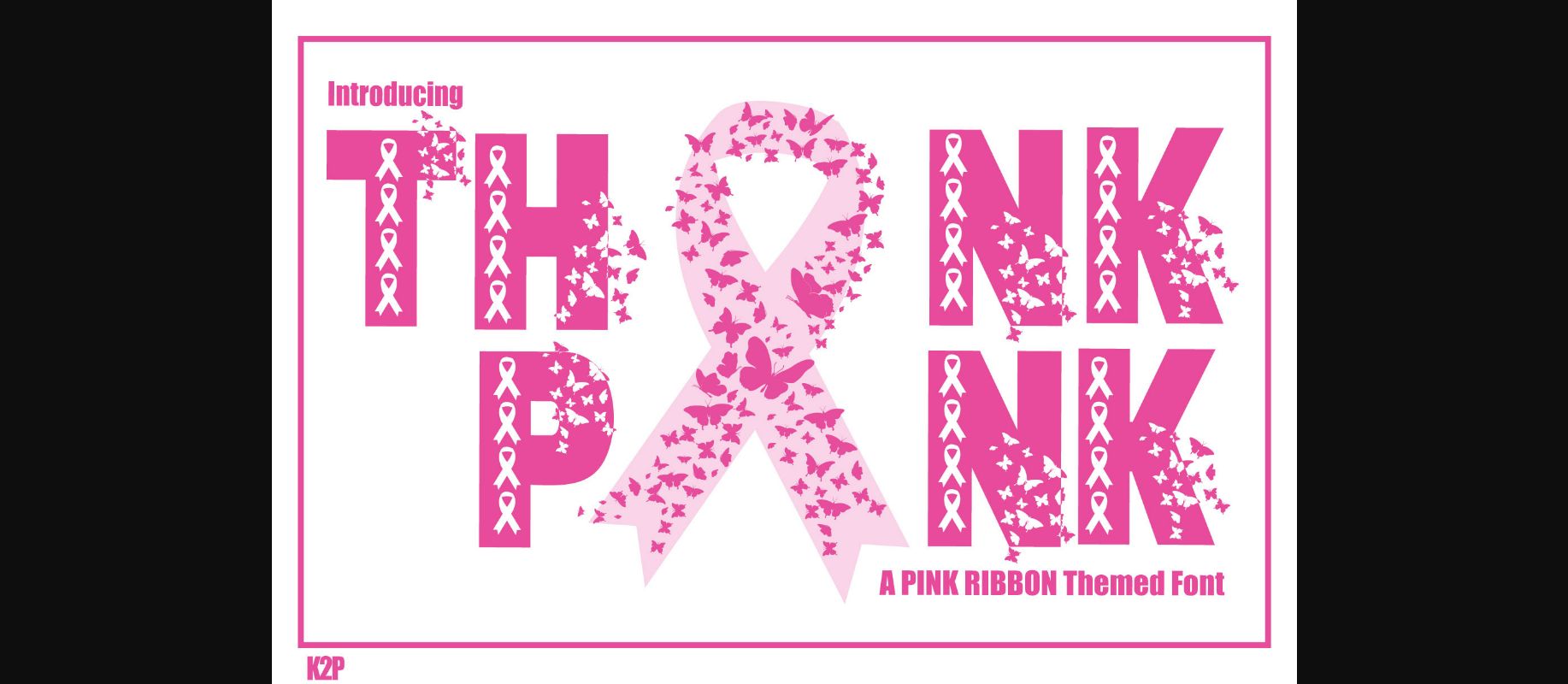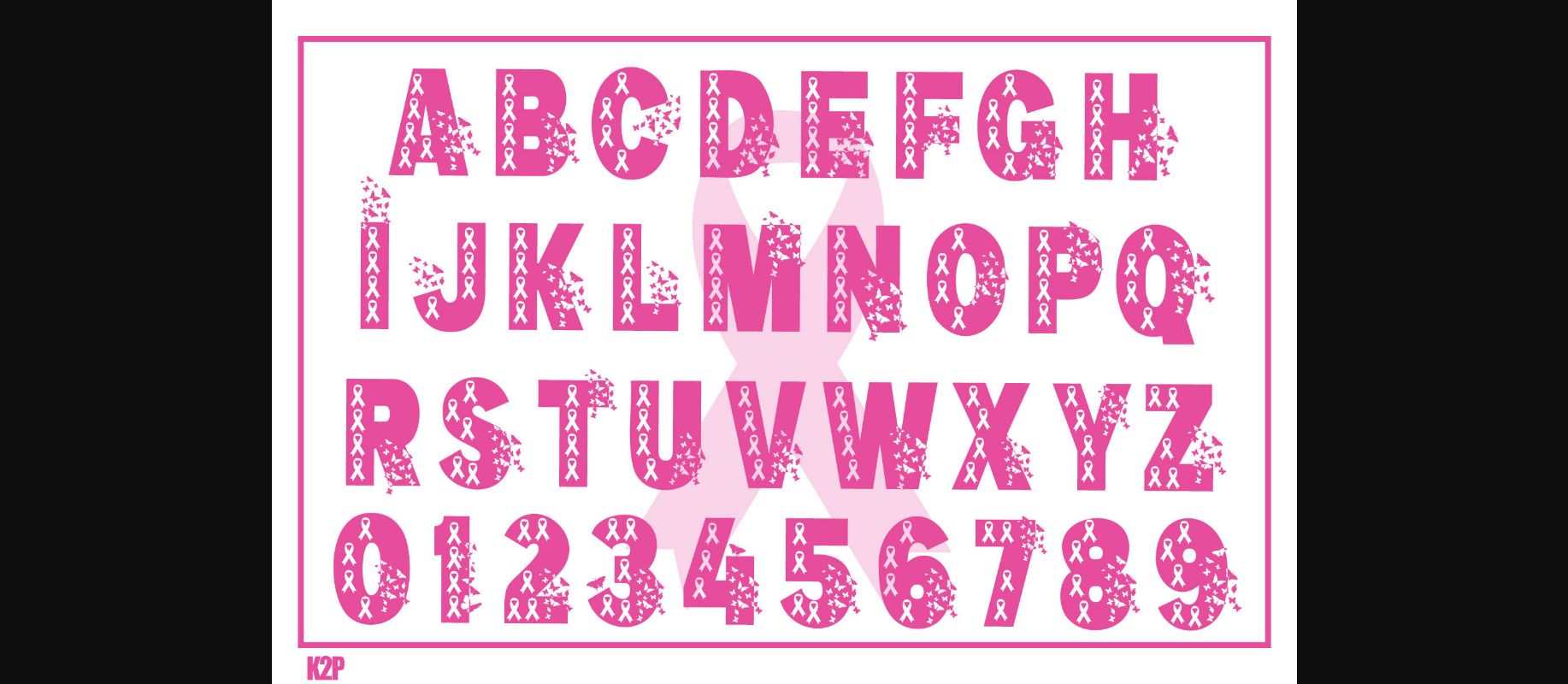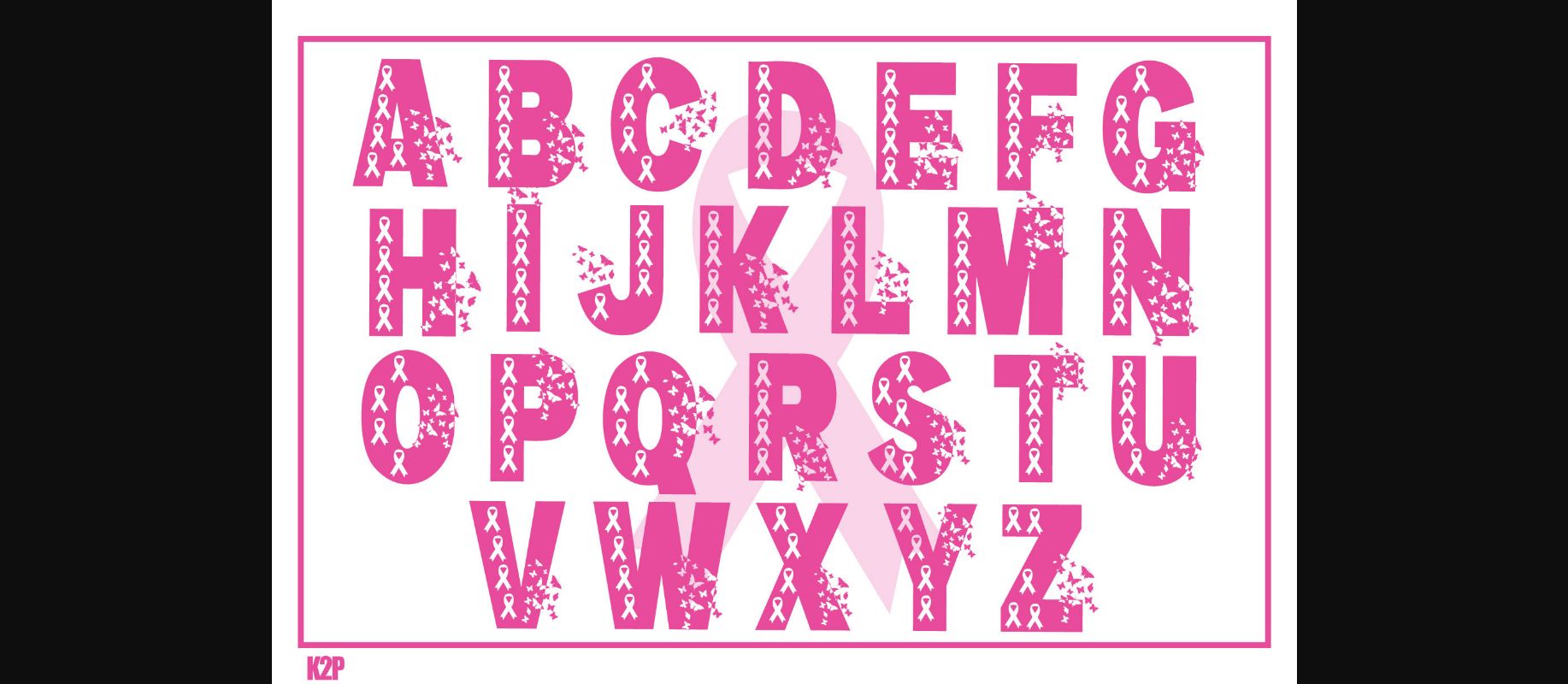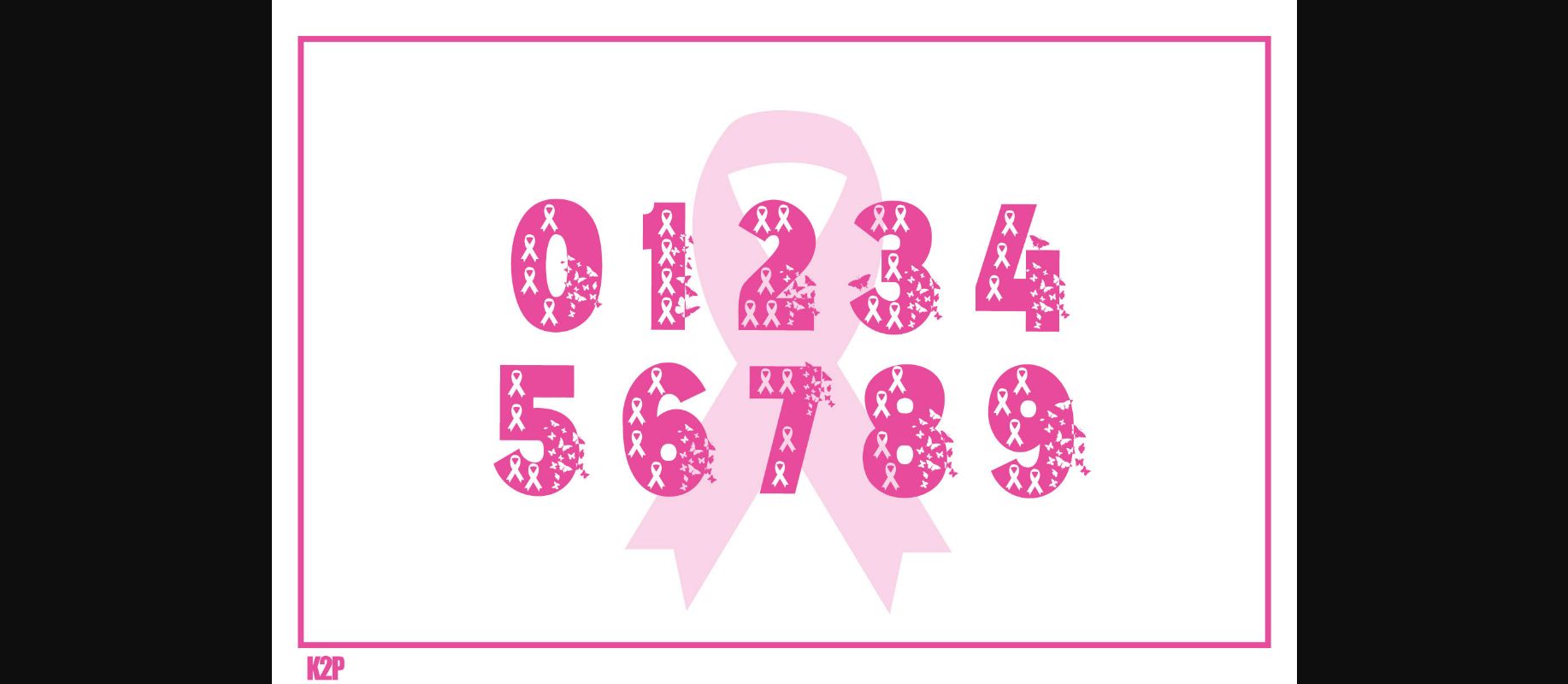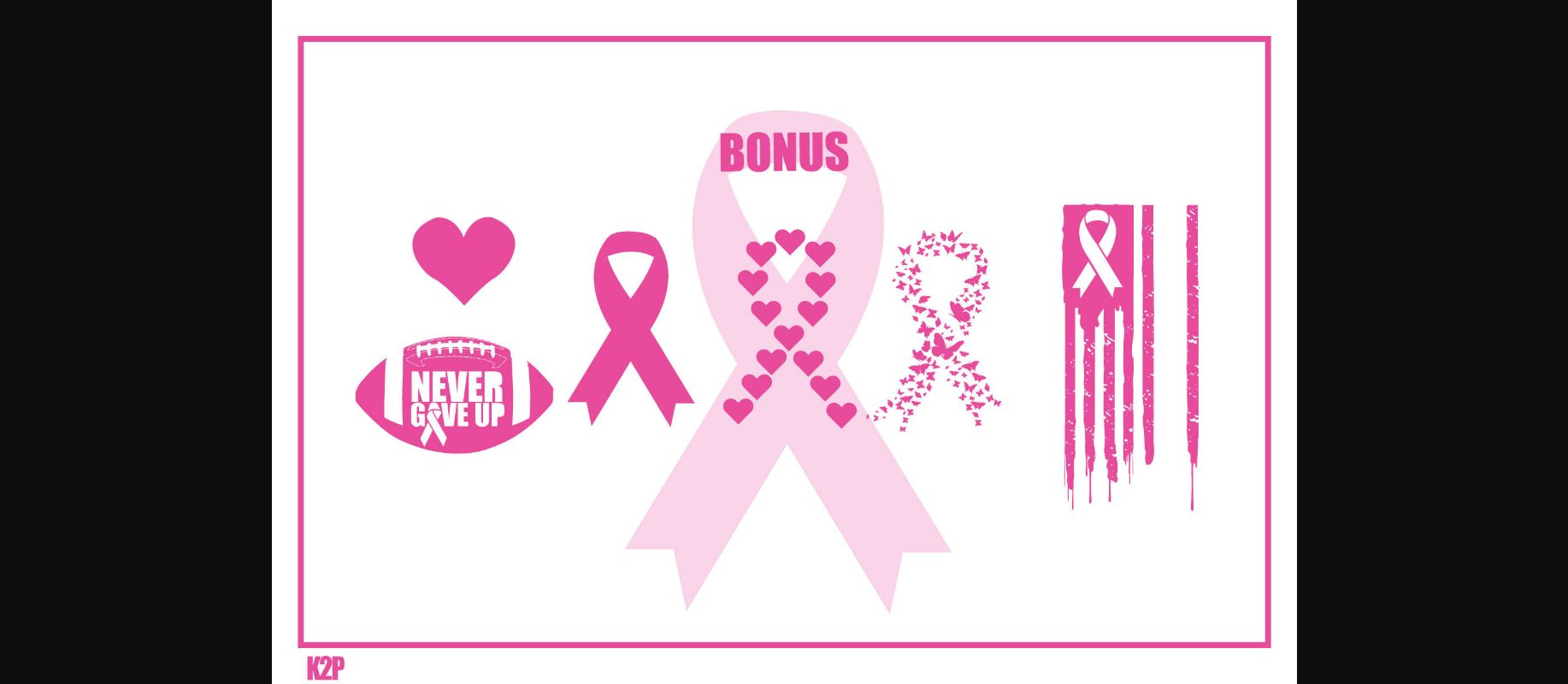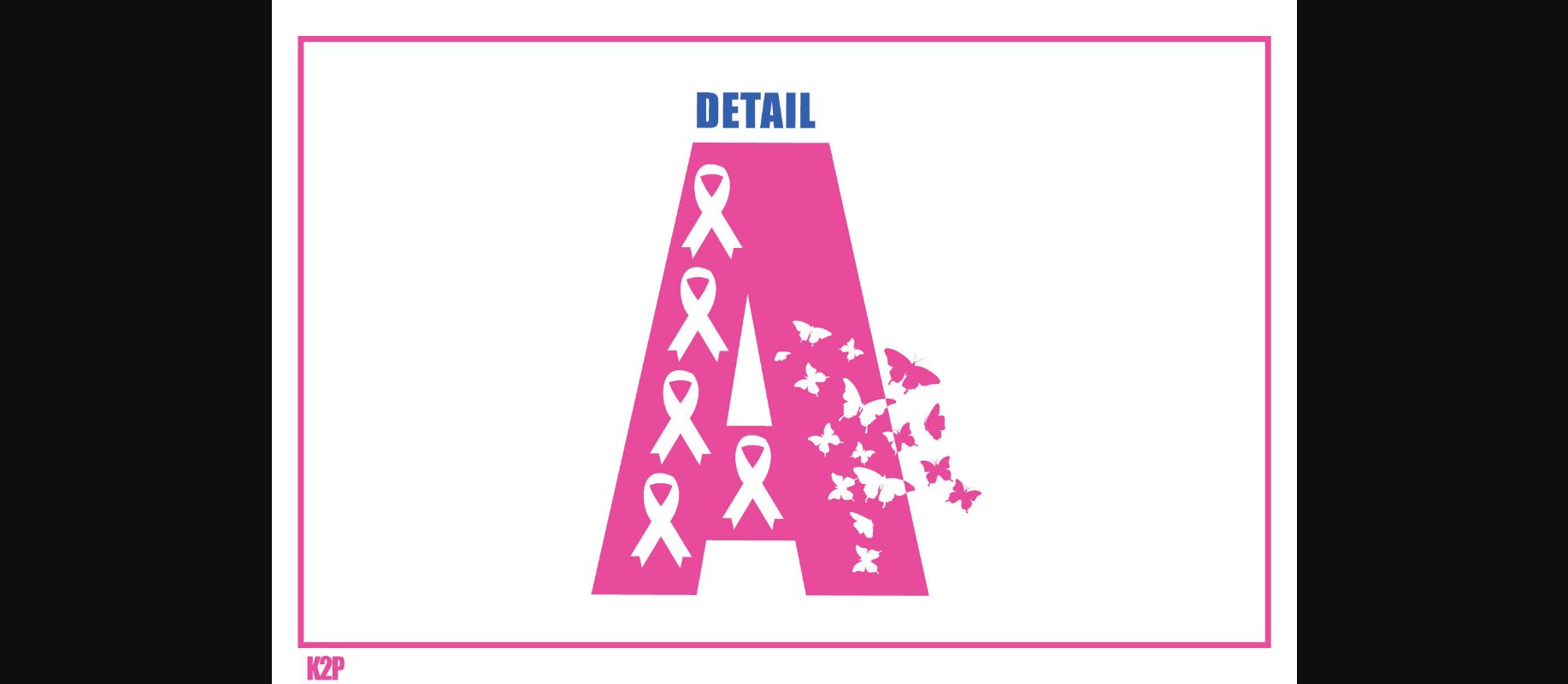
HomeDecorative FontsThink Pink Font Decorative Fonts Think Pink Font FacebookXPinterestWhatsApp 1 of 8 ... Think Pink Font Poster 2... Think Pink Font Poster 3... Think Pink Font Poster 4... Think Pink Font Poster 5... Think Pink Font Poster 6... Think Pink Font Poster 7... Think Pink Font Poster 8... About Think Pink Font Think Pink is a thick-lettered and unique decorative font. It is perfectly suitable for any breast cancer awareness project. This font is PUA encoded which means you can access all glyphs and swashes with ease! DOWNLOAD NOW People also explored Hello Bird Font Miel Family Font Nubriska Font Monday Font Pionelta Font Angela Font Romanica Merry Christmas Font Alcohol Font 370 0 TagsThink Pink Font Previous articleChristmas Tree FontNext articleMonogram Craft Font LEAVE A REPLY Cancel reply Comment: Please enter your comment! Name:* Please enter your name here Email:* You have entered an incorrect email address! Please enter your email address here Website: Save my name, email, and website in this browser for the next time I comment. Personal Use Free Banana Valentine Personal Use Free Read more about this font Geuli Font Personal Use Free Read more about this font Simple Personal Use Free Read more about this font Amellis Path Personal Use Free Read more about this font BLOG How to Cut Any Font on Cricut: Convert a Font to SVG (Free) Turn any font into a clean SVG so it cuts crisp on Cricut - a quick 3-step workflow using a free font-to-SVG tool. Fonts That Capture the Spirit of New York City Modern Sans-Serif Fonts That Brands Love in 2025 Exploring Font Trends